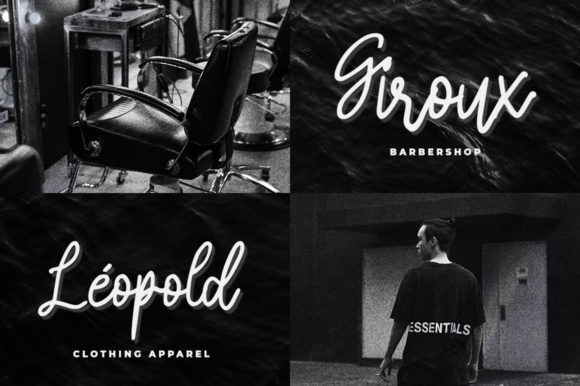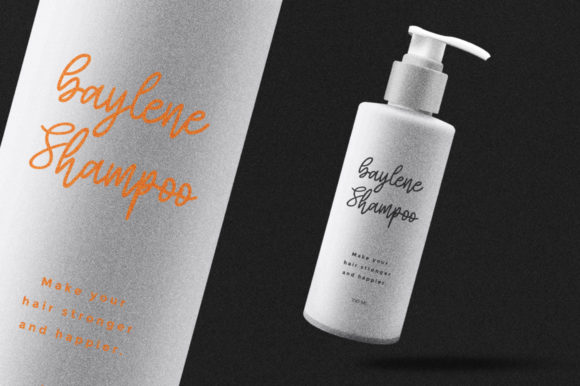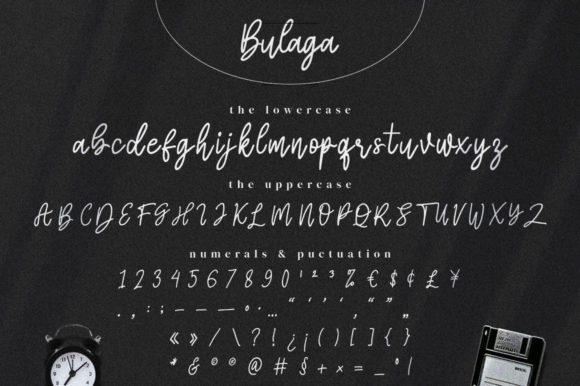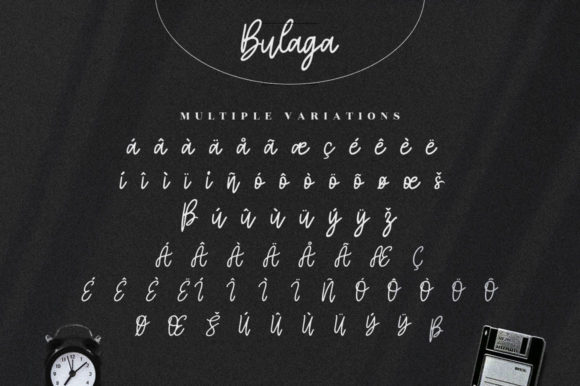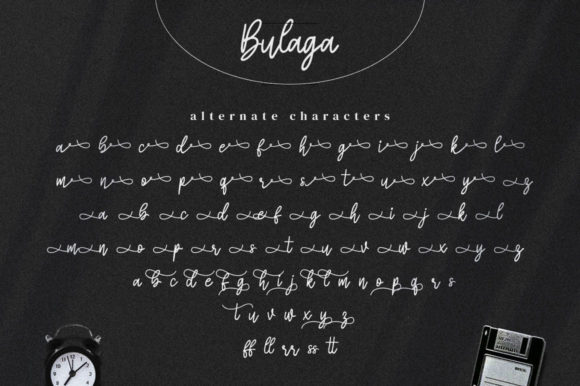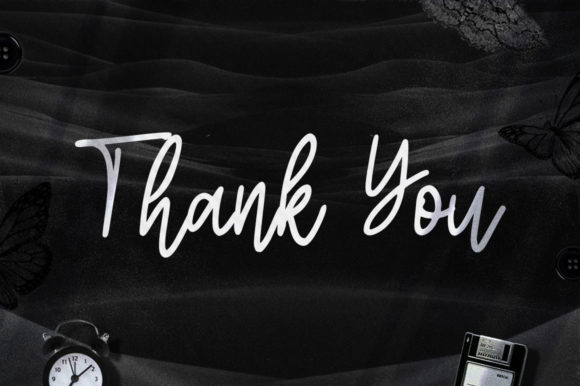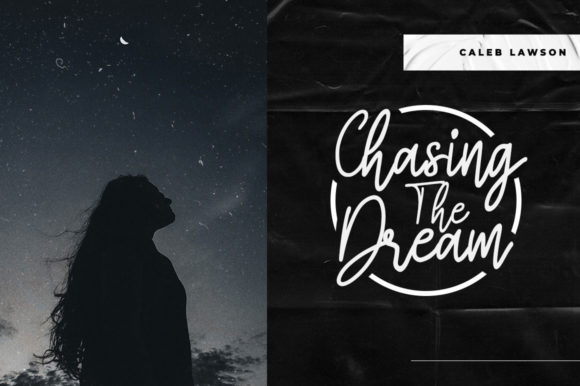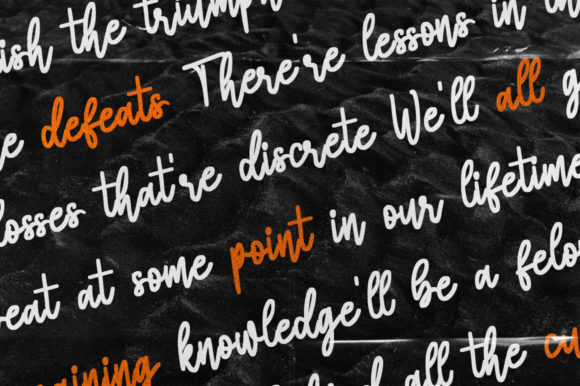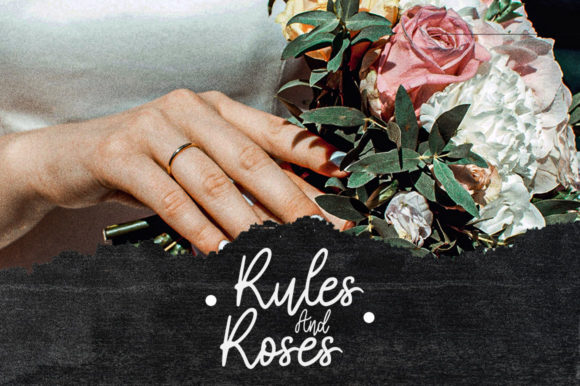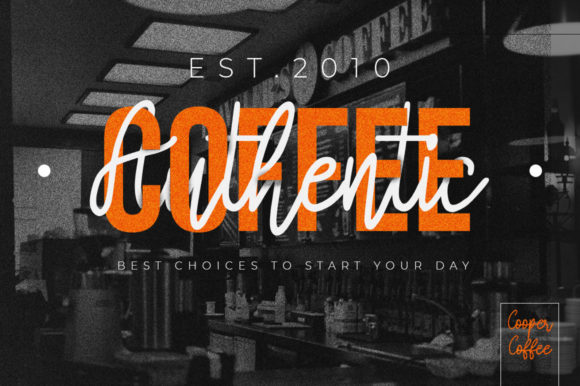
Bulaga Font
About Bulaga Font
Bulaga is a stylish and delicate script font that exudes elegance and charm. With its clean, thin, and smooth lines, this font adds a touch of sophistication to any design. It is meticulously crafted to offer a refined and contemporary look, making it a versatile choice for a wide range of creative projects.
The clean and sleek design of Bulaga allows it to seamlessly blend into various design styles and themes. Whether you’re working on branding materials, packaging, wedding invitations, or social media graphics, this font will bring a sense of elegance and grace to your designs. Its delicate strokes and well-balanced letterforms create a visually pleasing composition that catches the eye and leaves a lasting impression.
One of the notable features of Bulaga is its PUA (Private Use Area) encoding, which allows easy access to all the glyphs and swashes it offers. With a wide range of alternate characters, ligatures, and decorative swashes, you can effortlessly enhance the versatility and uniqueness of your designs. The PUA encoding ensures that you can access and utilize these additional design elements seamlessly, providing you with endless possibilities to customize and personalize your creations.
Whether you want to add decorative swashes to embellish your headlines, create stylish letter combinations with ligatures, or experiment with alternate characters to add variety to your text, Bulaga offers you the tools to do so with ease. The PUA encoding ensures a smooth and hassle-free experience, making it convenient to access and incorporate these design elements into your projects.
Bulaga’s clean and smooth vibe makes it a versatile font that can be used in a variety of design contexts. Its thin and delicate appearance adds a touch of sophistication and refinement to your typography. Whether you’re aiming for a modern and minimalistic aesthetic or a more elegant and ornate design, Bulaga can adapt to your creative vision and elevate your projects to new heights.
Experience the stylish and delicate charm of Bulaga and let it be a hit in your design projects. Its clean and smooth vibe, coupled with the convenience of PUA encoding, makes it a valuable addition to your font library. Explore the various glyphs, swashes, and alternates to create stunning and personalized designs that stand out and captivate your audience.